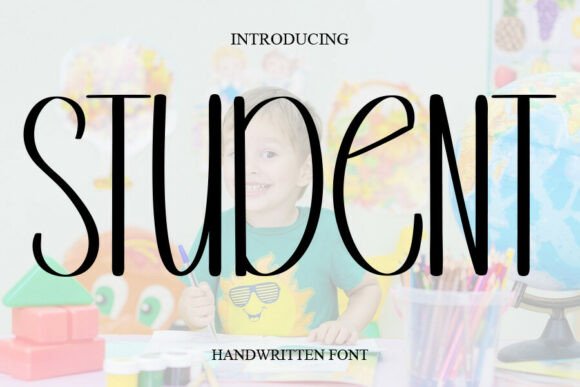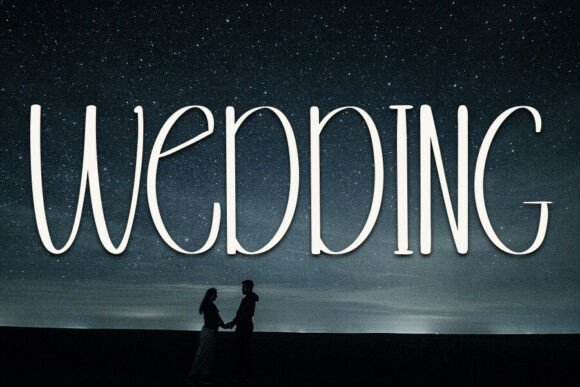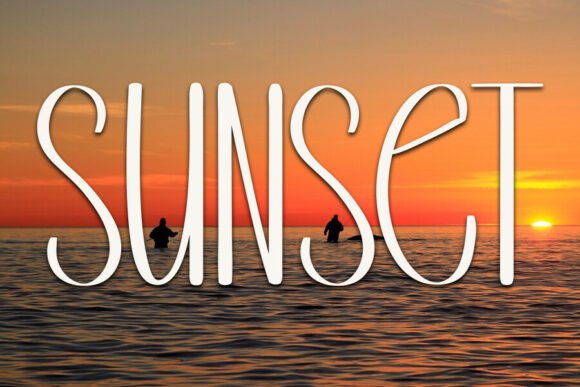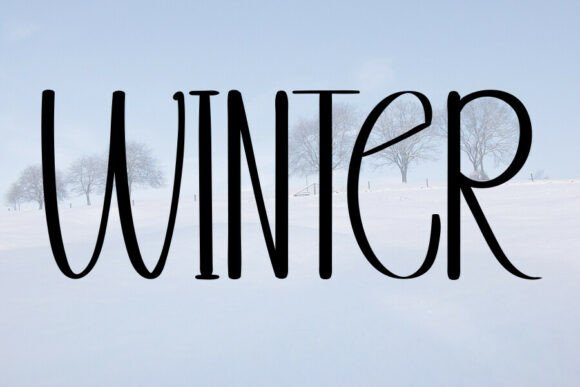
Student Font
About the Student Font
Experience the unique personality of Student Font, a font designed for impact. Student is a festive and merry typeface that captures the spirit of the holiday season. With its decorative elements and whimsical flair, it adds a touch of enchantment to your designs. Perfect for greeting cards, gift tags, and holiday-themed projects, this font brings a cheerful and nostalgic ambiance to your words. Let your typography shine with the magic of Beautiful Font!